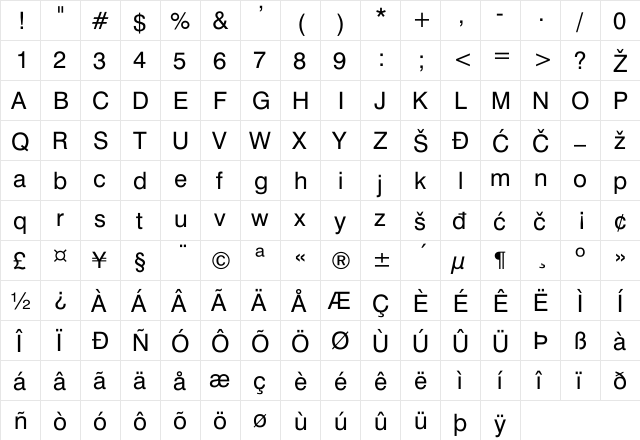
SL Swiss Regular
Design Context for SL Swiss Typeface
SL Swiss offers clean, dependable letterforms without strong stylistic allegiance, making it a practical choice for designers who need flexibility.